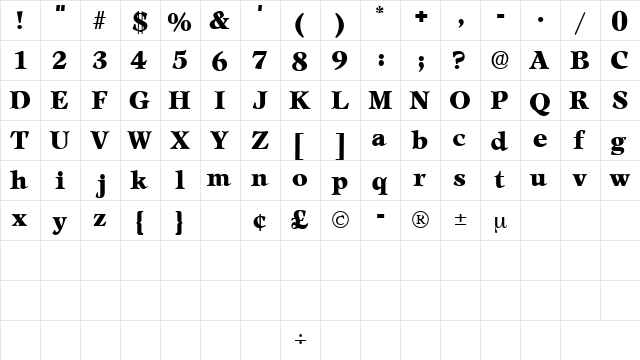
MezzoDisplaySSK Regular
Design Context for MezzoDisplaySSK Typeface
MezzoDisplaySSK is built around its visual character rather than neutral utility — its distinctive forms are designed to make an impression at display sizes.
Font Pairing: Pair with a clean neutral sans-serif for body copy to let MezzoDisplaySSK's character lead without overwhelming the composition.
Pro Tip: Use MezzoDisplaySSK exclusively at display sizes — it was designed to be seen, not read at length. Let a neutral companion handle body copy.